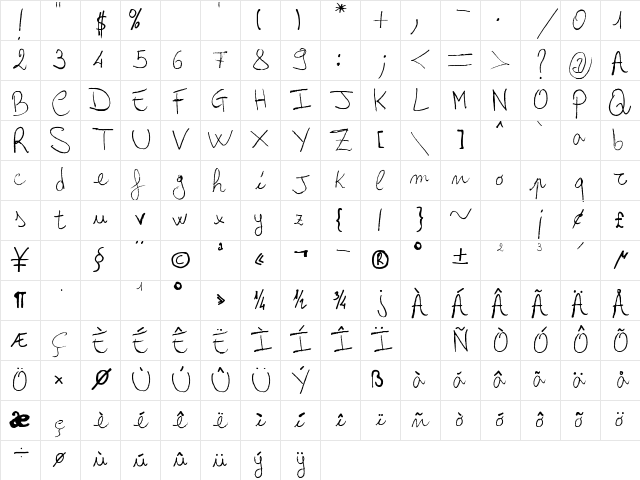
Arcangelo's Words Regular
Design Context for Arcangelo's Words
Arcangelo's Words is a composed and adaptable typeface that performs quietly and consistently across a wide range of design contexts.
Pro Tip: Use Arcangelo's Words in both headline and body roles to test its range before committing to a single application.